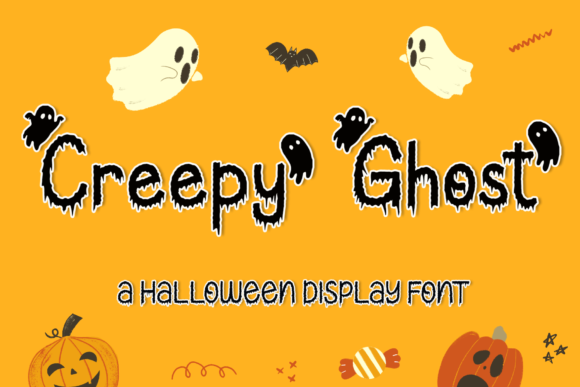
Journey through the realm of the macabre with Creepy Ghost, the hauntingly beautiful display font. Dive into a world of mystery and intrigue as this font captivates your audience with its eerie allure and spine-tingling charm.
Unleash the power of Creepy Ghost to create spellbinding posters, captivating book covers, or spine-chilling Halloween invitations. Its meticulously crafted characters, reminiscent of whispers from beyond the grave, will add an air of otherworldly elegance to your designs.
With Creepy Ghost at your disposal, you can effortlessly conjure mesmerizing logos, social media graphics, and website headers that leave a lasting impression. Its meticulously designed glyphs and swashes, accessible with ease through PUA encoding, provide limitless creative possibilities.
Embrace the captivating aura of Creepy Ghost and let your imagination run wild. Craft enchanting branding materials that exude a sense of mystery and intrigue. Unleash the power of this font to create designs that capture attention, ignite curiosity, and leave your audience spellbound.
Unlock the secrets of Creepy Ghost today and embark on a creative journey like no other. Let this font be your guide as you explore the depths of your imagination and bring your haunting visions to life.